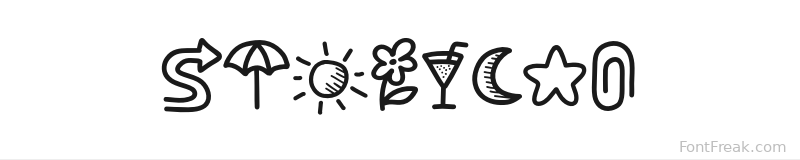
Storycan
The Storycan font, designed by Syaf Rizal, is a unique display typeface that combines playful elements with a modern aesthetic. This font is categorized as a decorative typeface, characterized by its friendly and whimsical design. The strokes are varied in weight, giving it a light-hearted yet structured appearance. The characters feature a mix of rounded and angular shapes, which enhances its playful vibe while maintaining legibility. With its distinctive visual style, Storycan showcases a balanced contrast that makes it stand out in various applications.
Ideal use cases for the Storycan font include creative projects such as wedding invitations, where its charming design can convey warmth and joy. It is also well-suited for movie posters, allowing for an engaging and inviting title display. Additionally, restaurant menus can benefit from its unique character, drawing attention to specialty items. Content creators will find it advantageous for social media graphics, where a memorable and eye-catching font can elevate their posts. Graphic designers and small business owners will appreciate its flexibility and the ability to infuse personality into their branding.
The target audience for Storycan includes graphic designers looking for a versatile font that can enhance their projects, small business owners aiming to create a strong brand identity, and content creators who want to make their work visually appealing.
What sets Storycan apart is its ability to merge fun with functionality, making it an excellent choice for anyone seeking to add a touch of creativity to their work. Whether you are designing a flyer or crafting a logo, the Storycan font free download offers a playful option that can elevate your visual communication.